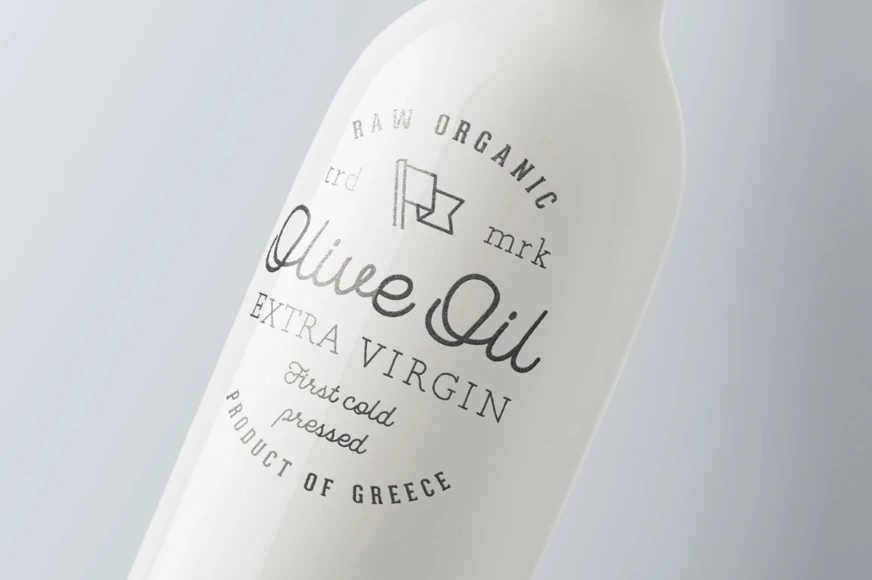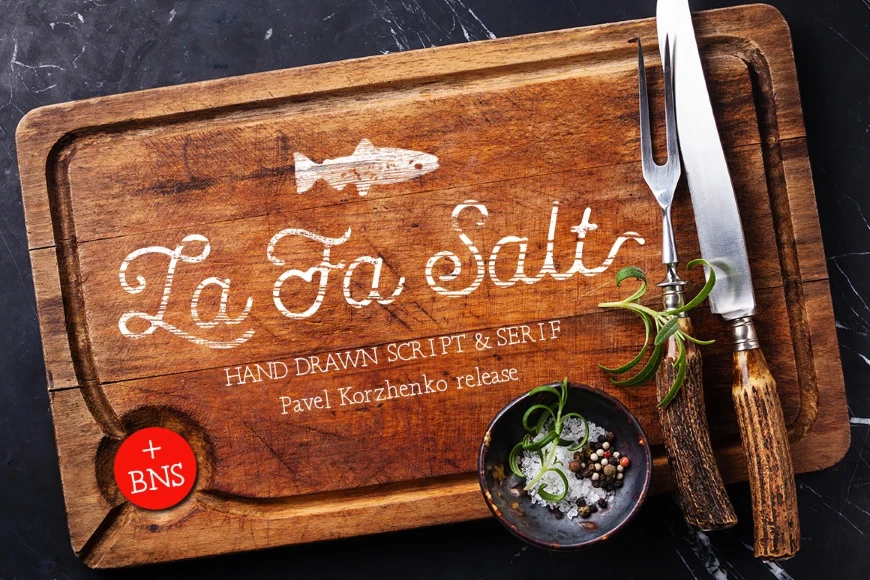
La Fa Salt
La Fa Salt Regular
La Fa Salt is a cursive script typeface with a handcrafted feel and romantic character. Features alternate endings, discretionary ligatures, and a full set of capital and lowercase letters with elegant stylistic options. Designed for creating both vintage and romantic typography. Well-suited for invitations, packaging, branding, signage, and expressive headlines. Adds warmth and personality to a wide range of creative projects.